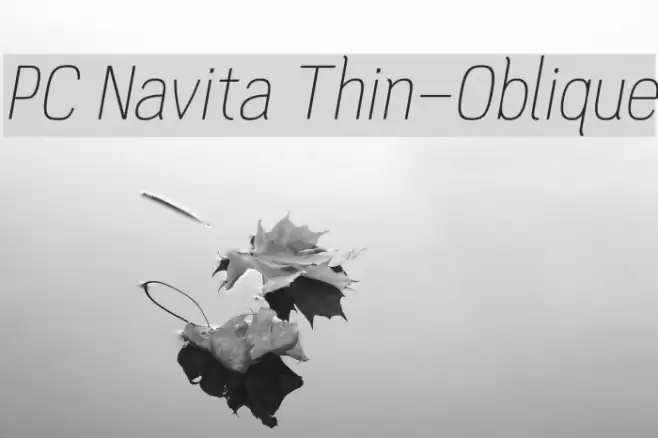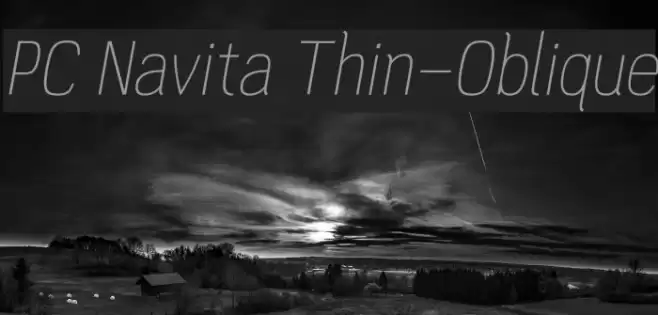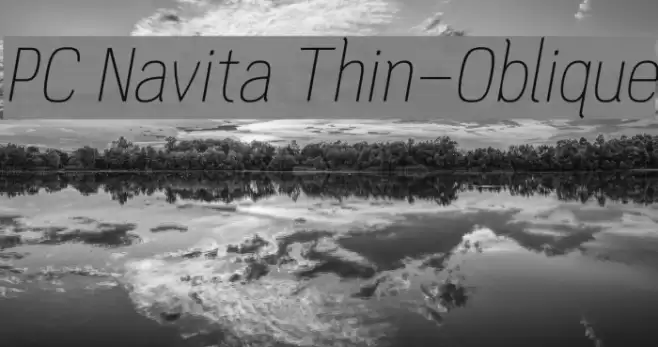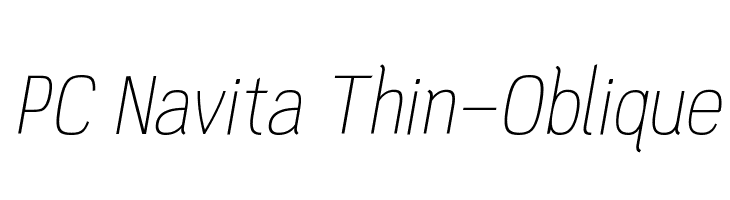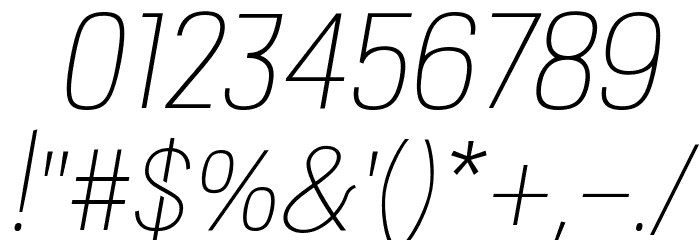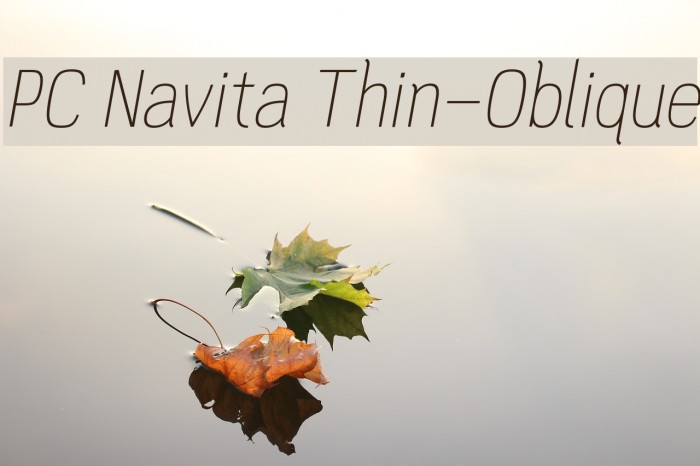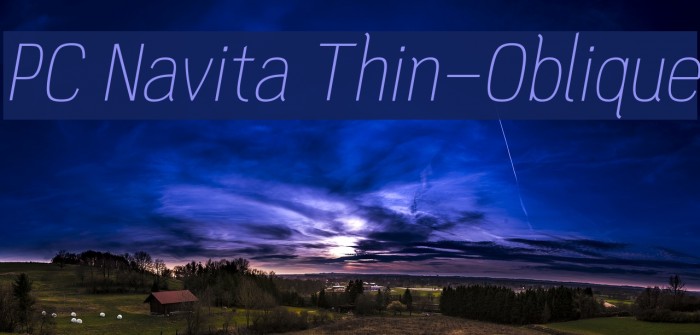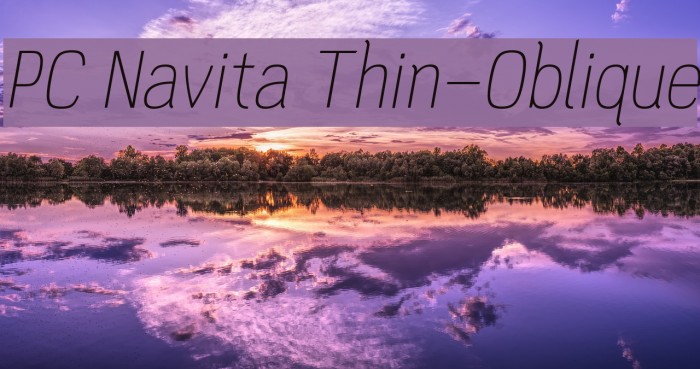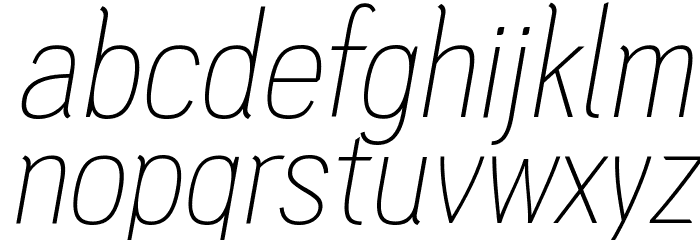
PC Navita Thin-Oblique Font
PC Navita Thin-Oblique Description
This font features a sleek and modern design with a thin, oblique style. The characters are elegantly elongated, giving a sense of motion and fluidity. The uppercase and lowercase letters maintain a consistent slant, creating a cohesive look across the alphabet. Numbers and special characters are designed with the same thin strokes, ensuring uniformity. The overall appearance is clean and minimalistic, making it suitable for contemporary design projects. The font's oblique nature adds a dynamic touch, while the thin weight keeps it light and airy.
A sleek, thin, and oblique font with a modern and minimalistic design from Uncategorized fonts.
- Proposed Projects: Ideal for modern branding, fashion magazines, sleek product packaging, and dynamic website headers.